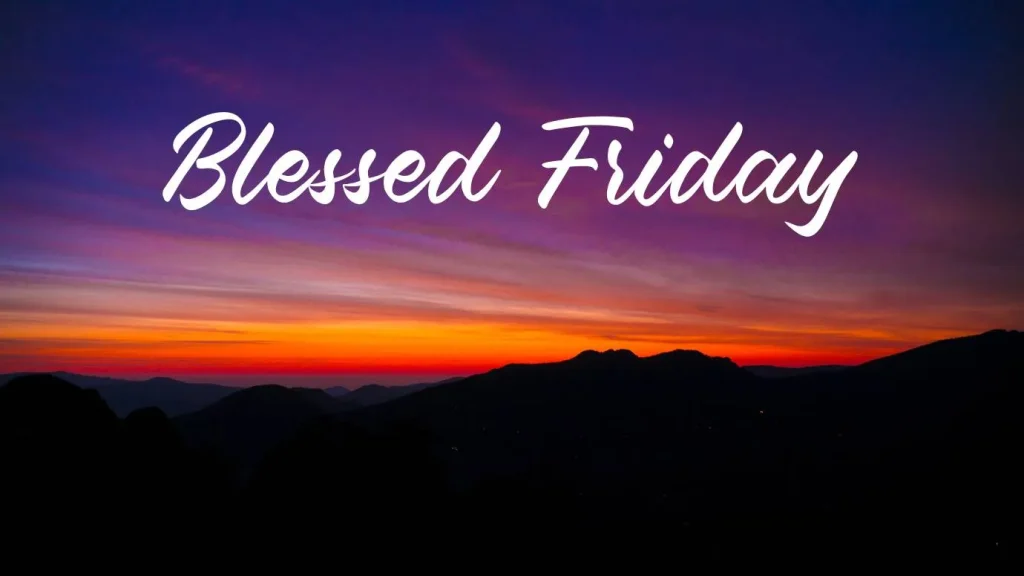
Blessed Friday Font is designed by Sancrea Studio which is a nice script style. The text style has ligatures, proportions, arrows, icons, fractions, case-sensitive forms lesser and greater commas, the font is perfect for advanced typography.
A modern, clean, and professional appearance can be seen over here. A program that can be used to create unique designs such as Adobe, Canva, or Photoshop is also suggested.
The title of your book will look awesome with this font. The text could be formatted in different ways whereas titles and headings could be formed in a unique way. Your designs will look classier with the free version. It is obtainable in the OTF set-up.
This unique design appeals to the eye and it has a useful and beautiful design. If you are looking for a font with lots of characters, this font will be a perfect choice for you.
To create a design that is exclusive and attention-grabbing for that purpose you can pair this font with any other typeface. The pairing of this typeface with the aller font opens up opportunities to craft exceptional displays.
The Joyful Personality of Blessed Friday Font
A variety of applications can be created with this typeface, including logos, headlines, and web designs.  Numerous places, such as fashion magazines, books, newspapers, and company branding, would benefit from the use of this typeface.
With this stunning typeface, you can use both lowercase and uppercase letters. It is possible to generate this typeface using an online font generator. Your content will get a nice look with this font. Because of its stylish glyphs, it is perfect for a wide range of designs.
What is Blessed Friday font?
It is a script font with thick terminals. This style can add some extra attractiveness in bigger sizes.